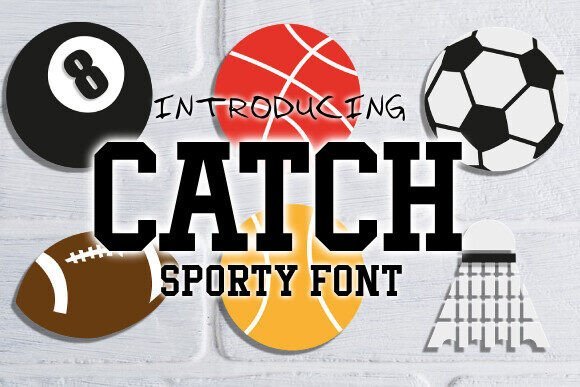
Introduction to Catch Font
Catch is stylish athletic font that will look awesome on any of Your designs.
Use this font on t-shirts, posters and flyers .
Key Features of Catch Font
Why Choose Catch Font?